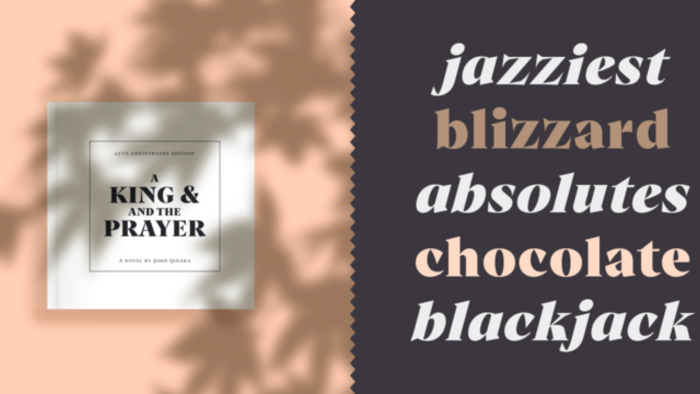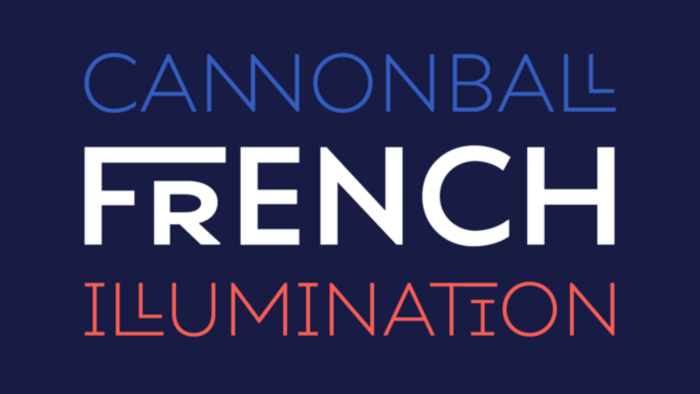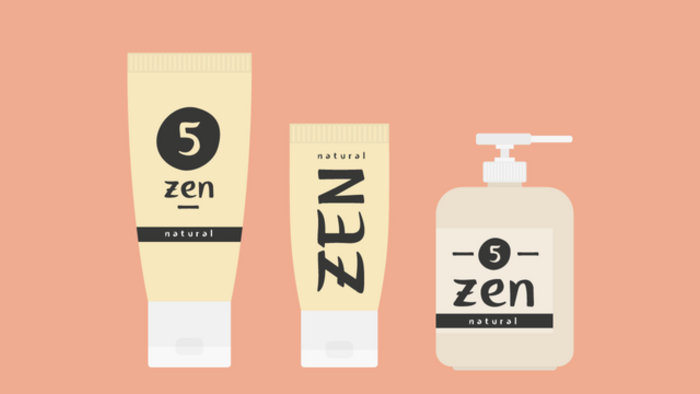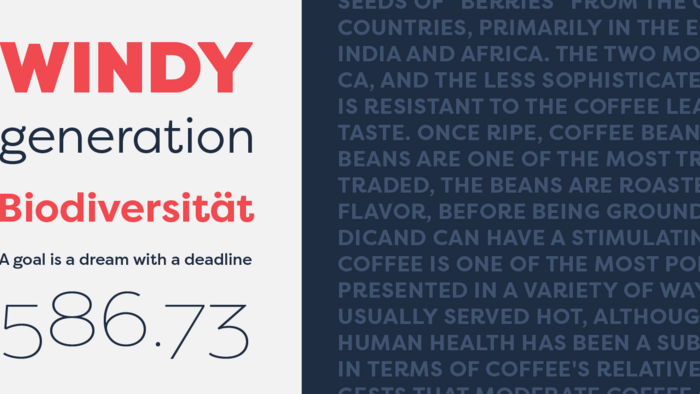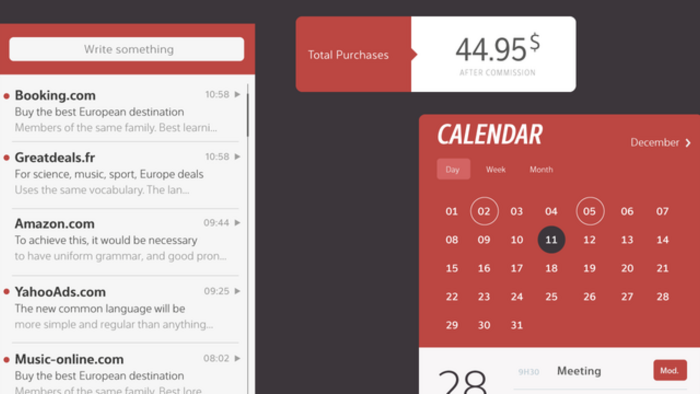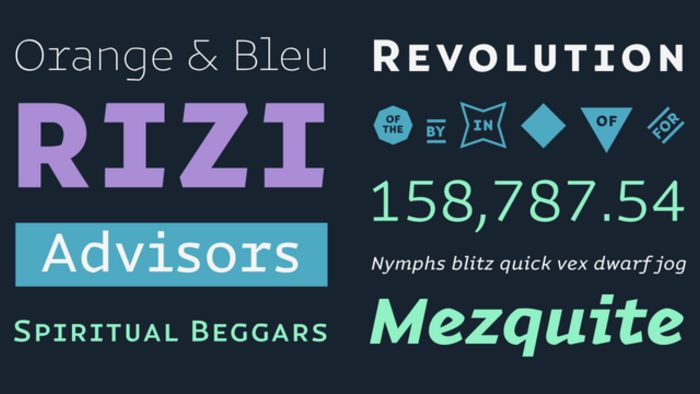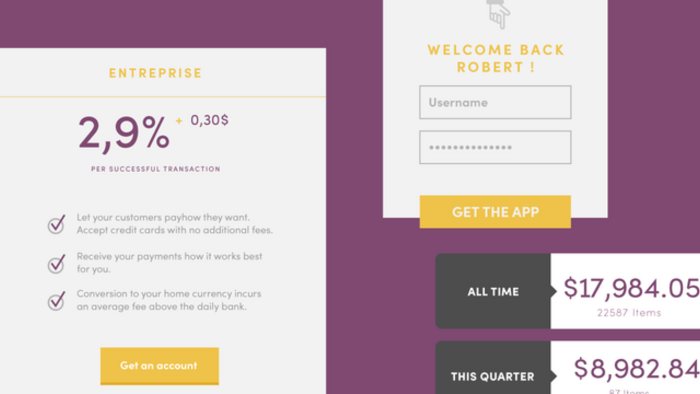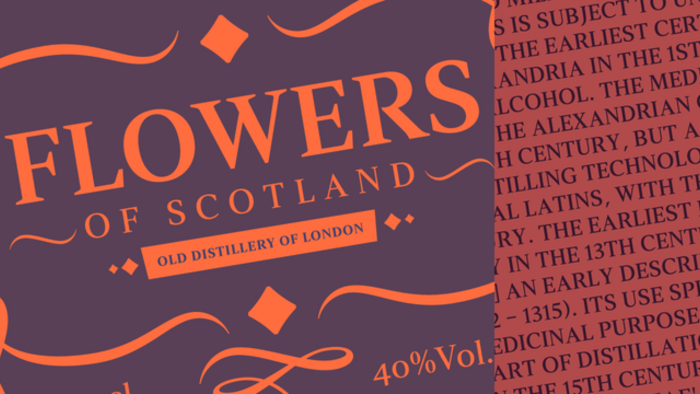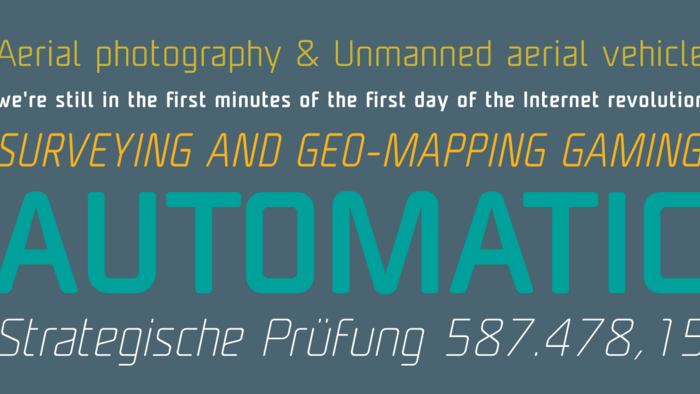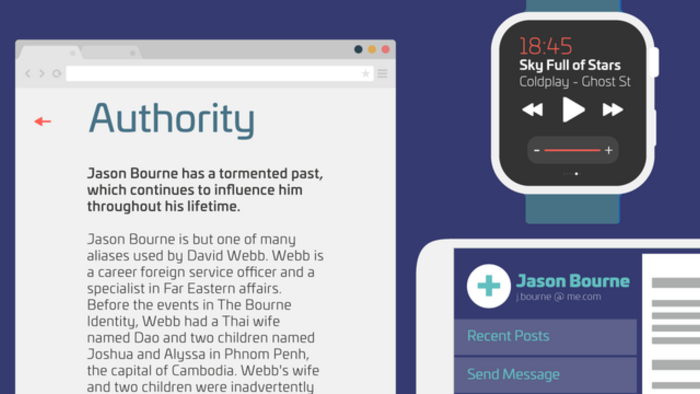
The son of a sign painter, Olivier Gourvat grew up immersed in illustration and painting techniques and surrounded by his father’s work, which spurred his passion for design. He began his career as a graphic designer, working for various agencies and publishing houses. In 2004, Olivier created the Mostardesign Type Foundry, which focuses on creating professional fonts with wide application in communications and branding, including the best-selling Sofia Pro. The foundry’s designs are typically minimalist, geometric, and contemporary, all created for maximum versatility. Mostardesign’s typefaces have graced marketing campaigns and brand identities of consumer goods brands, technology companies, museums, and more.
Sofia Pro
Sofia Pro is a geometric sans font family embellished with modernism and the harmony of curves. Created in 2009 and completely redesigned in 2012, Sofia Pro is a MyFonts Rising Star and one of the site’s top 20 Best Sellers. With extremely rounded curves and very open terminals, this font family is elegant, friendly, and contemporary. The typeface was designed with a higher x-height than other fonts in its class to maximize tiny readability, ideal for business cards or mobile applications. Sofia Pro is also equipped with a powerful home kerning system and OpenType features to satisfy the most demanding professionals, while its complete font set is perfectly suited to projects of all types, including branding, publishing, product packaging, and website design.
Fengo
Fengo is a beautiful hand-lettering font inspired by Sino-Japanese and traditional Chinese hieroglyphic characters that give an authentic and friendly appearance. The typeface contains a wide range of features such as initials, finals, swashes, arrows, and circled numerals. A versatile font, Fengo works well across many different types of graphic design projects, such as packaging, signage, branding, and titles.
Ariana Pro
Ariana Pro is an expressive and modern geometric sans serif font family, with rounded letterforms and elegant yet subtle curves that give the typeface a friendly and approachable appearance. The font is extremely legible, even in small point, making it ideal for business cards and mobile applications. Ariana Pro’s range of nine weights also makes it suitable for many purposes including editorial use, web fonts, apps, digital ads, long text, and branding. The typeface offers advanced typographical support with Opentype features such as case-sensitive forms, small caps, ligatures, alternate characters, fractions, circled figures, and pro kerning. The family comes with a complete range of ligature set options, and has an extended character set to support Central, Eastern, and Western European languages.
Magnetic Pro
Magnetic Pro is a typeface inspired by typewriter characters; it consists of a monoline foundation amplified by sharp, angular cuts, resulting in a machine-like vibe. This style, combined with high legibility, makes the font a perfect choice for programming and mobile applications, as well as for display and editorial projects focused on technology and science topics. The typeface uses true italics with a “mechanical script” aspect that gives more style to long texts. Equipped for professional typography, this font family has many OpenType features and an extra graphics style for those who want to add catchwords, special titles, arrows, and geometric shapes to their creative projects.
Interval Next
Interval Next is a contemporary sans serif font family that is the successor of the popular Interval Sans Pro. This “superfamily” combines a humanist mind with its contrasted shapes and a modern look with its open counters. The typeface’s OpenType features offer almost unlimited multilingual support as well as small caps, case-sensitive forms, proportional and tabular figures, slashed zero, numerators, superscripts, denominators, scientific inferiors, circled figures, subscript, ordinals, fractions, arrows, and f-ligatures. Also extremely functional for professional editorial design, Interval Next has pro kerning and is ideal for mobile applications, e-books, web sites, headlines, posters, and signage.
Strato Pro
Strato Pro is a modern serif font family designed to maximize readability and legibility. Inspired by Classic Roman typeface design, Strato Pro is an elegant transition between old style and neoclassical designs. Its serifs are bracketed and its head serifs are oblique, but the serif shapes are designed with straight lines for a more contemporary feel. Strato Pro has 16 weights, ranging from book to black with small caps, and an ornament set to give any design project a look of distinct elegance. Strato Pro includes functions with all the OpenType features expected with any modern serif font family, and offers an extended character set to support Central, Eastern, and Western European languages.
UNicod Sans
The UNicod Sans font family was designed to serve industries such as financial services and technology who need their communication to give an appearance of modernity and precision. This typeface’s square proportions make the design very readable at a wide range of sizes. Shapes give the font a unique, futuristic look, making it a practical choice for modern headlines, branding, text, and web fonts work. This clean, modern sans serif family also contains an alternative set with simplified letters designed especially for text and a unique stylistic set for titles and branding.
Archeron Pro
Archeron Pro is a modern serif font family that revisits the neo-classical style of highly contrasted serifs, bringing a contemporary touch to graphic and editorial projects. The typeface has been designed with high-contrast character ratios and a high x-height to give sentences more rhythm and to bring legibility to long texts for on-screen display and printed materials. Archeron Pro also has a complete set of real small capitals with a little more tension than uppercase and generous proportions to give more emphasis to text that needs to be highlighted. The font family also has a complete set of proportional and tabular numbers, fractions, and circled numbers for tables and numerical lists.
Univia Pro
Univia Pro is a contemporary OpenType font family created with modernity and versatility in mind. The typeface’s distinctive modern personality is mostly achieved by smooth curves and round corners that form a similar futuristic style across the entire font family. Univia Pro is perfect both for display and text use and due to its ultra-modern look, it is perfect for e-books, websites, user interface fonts, and mobile apps. The Univia Pro font family is heavily equipped with OpenType features and provides broad language support.
Filson Pro
Filson Pro is a geometric sans serif family designed for versatility. The distinctive letters ‘K’, ‘Q’, and ‘R’ give this font family a unique elegance, while its graceful, elegant curves give the font a classic, yet contemporary feel. With 575 glyphs, its round aspect, and coverage of more than 100 languages, Filson Pro can be used in many different types of graphic and web design projects, as well as for international communication. Also designed for complex editorial content, this typeface has a powerful home kerning system, Pro Kerning, that uses more than 1,500 pairs of glyphs and multiple languages to optimize headlines, subtitles, texts, and long paragraphs in real time.